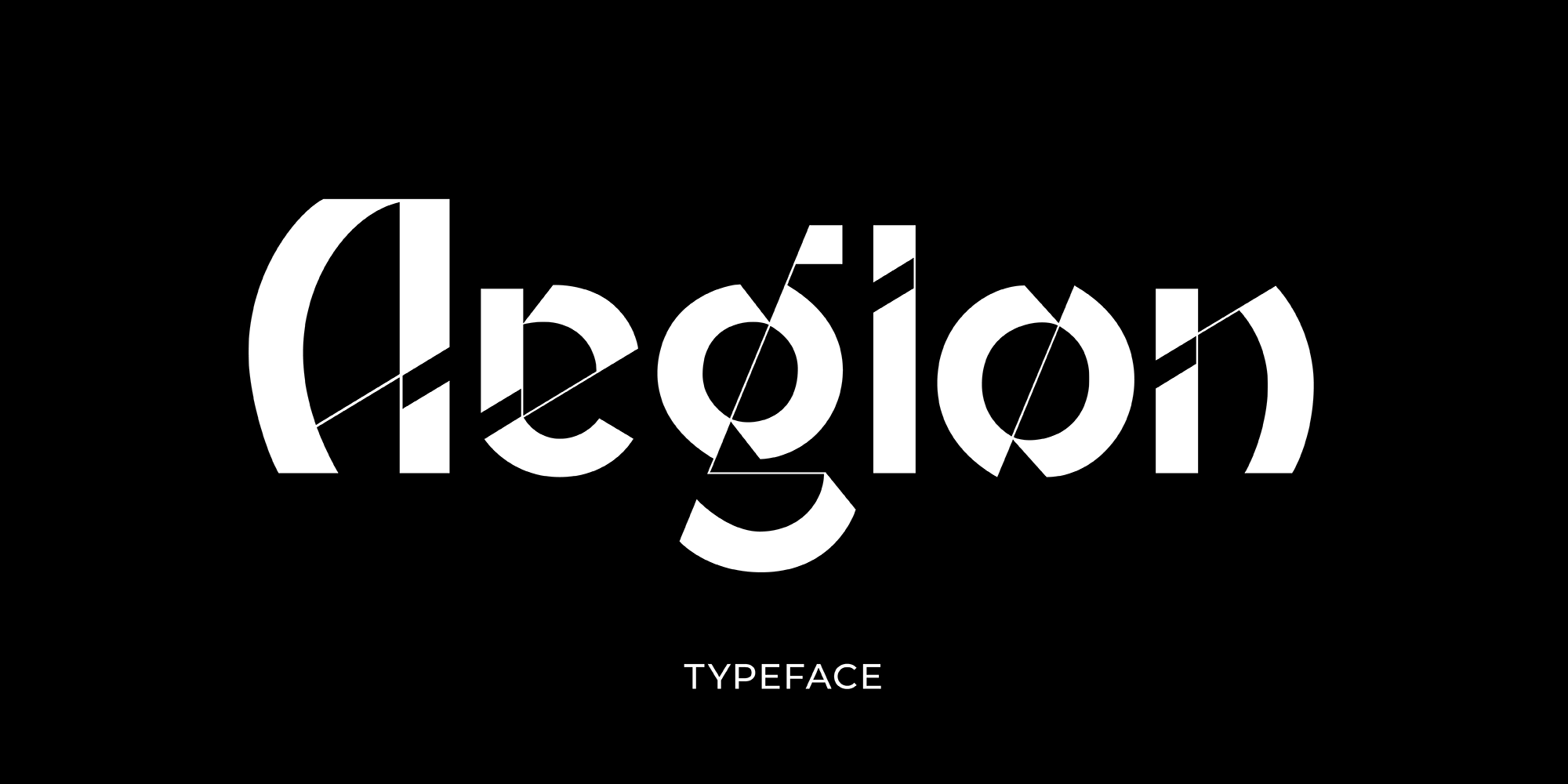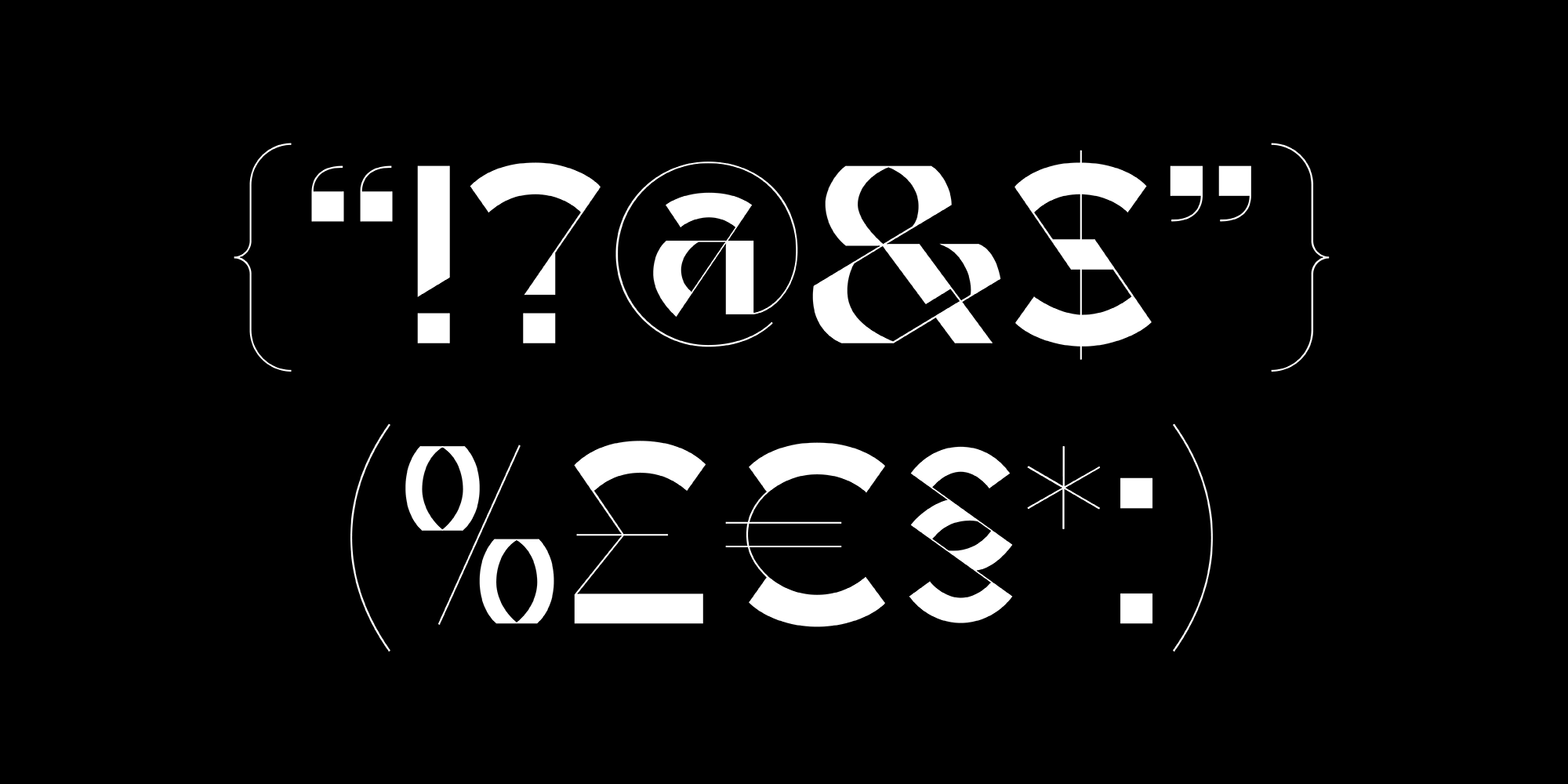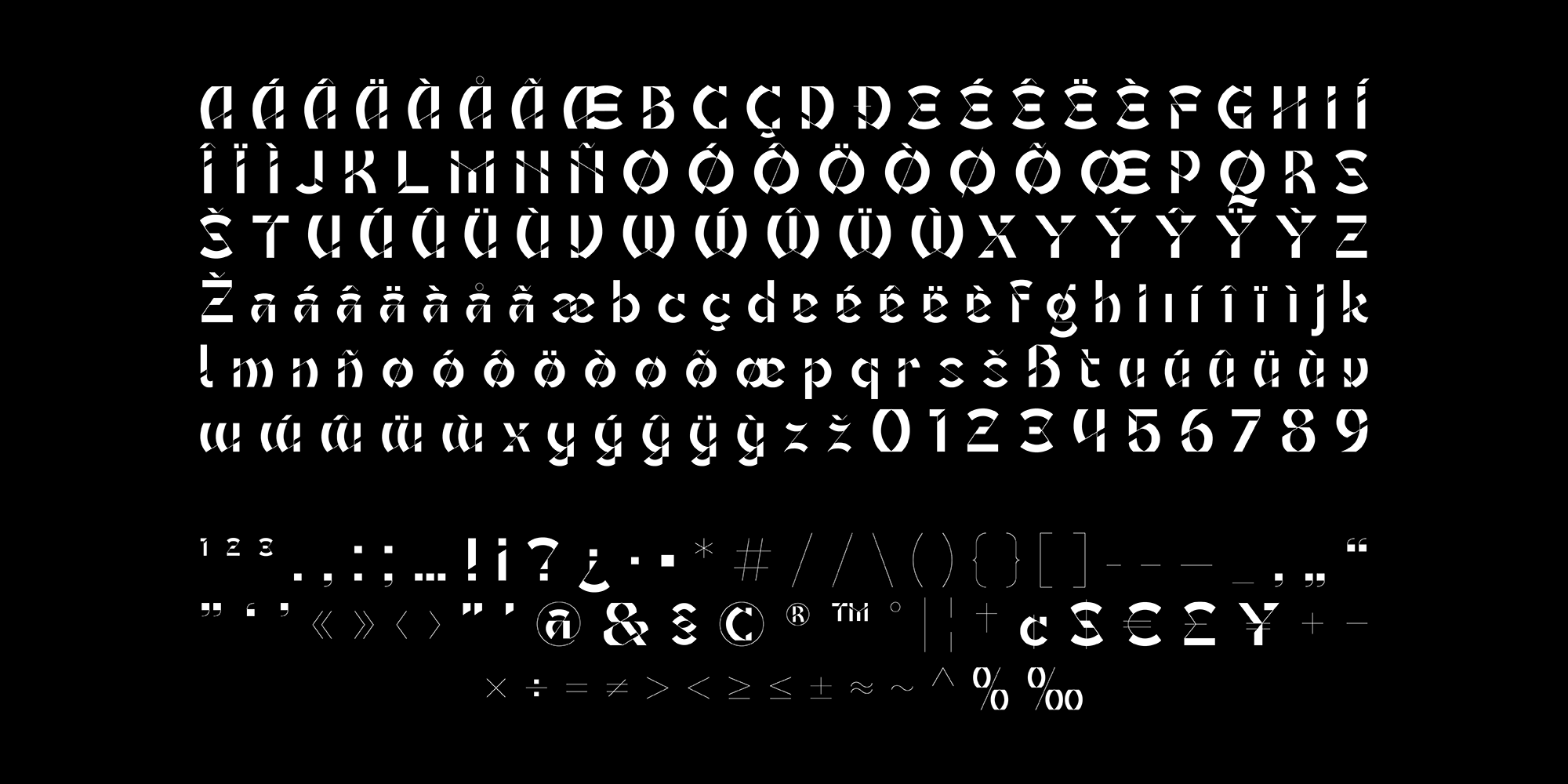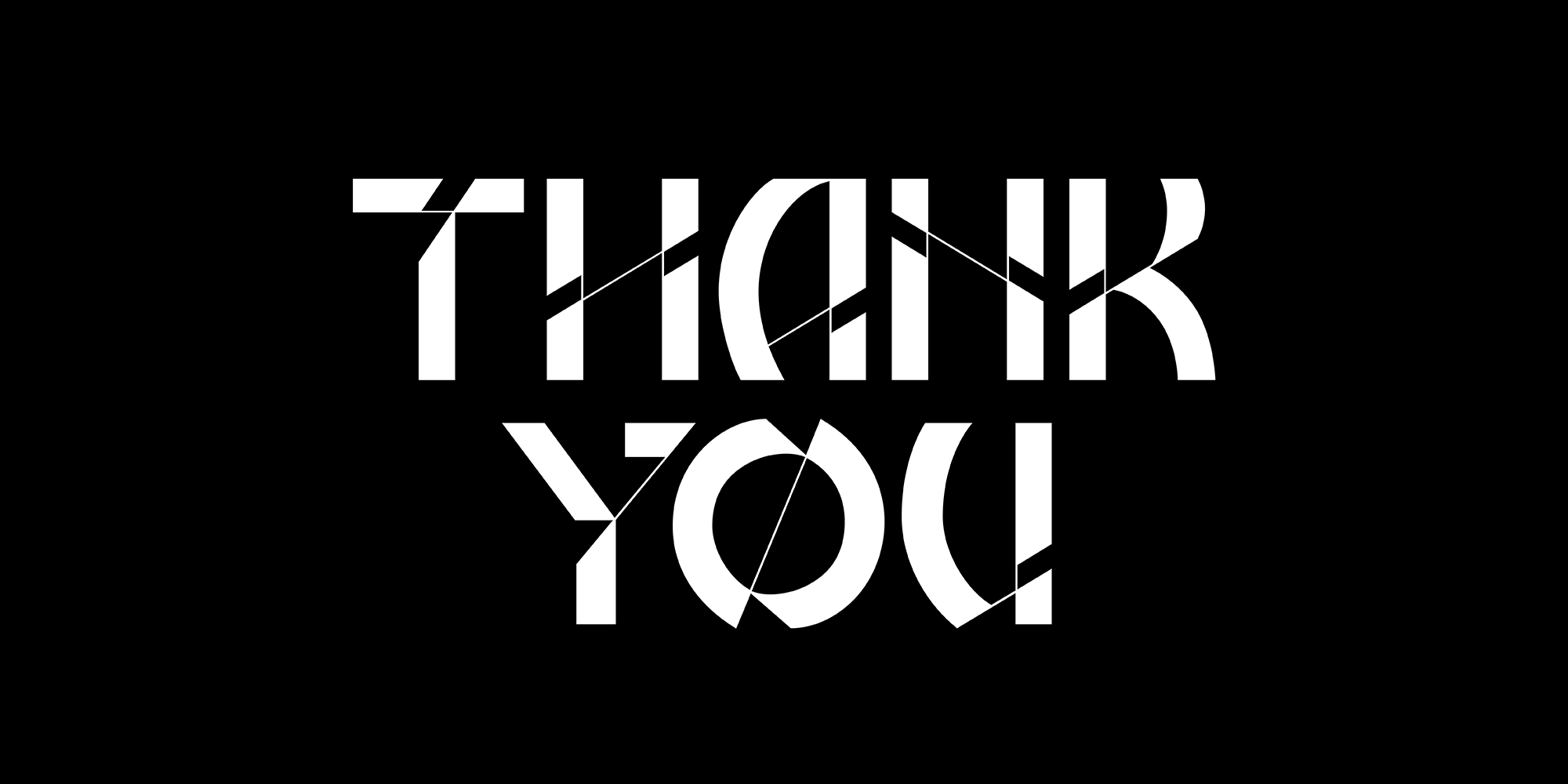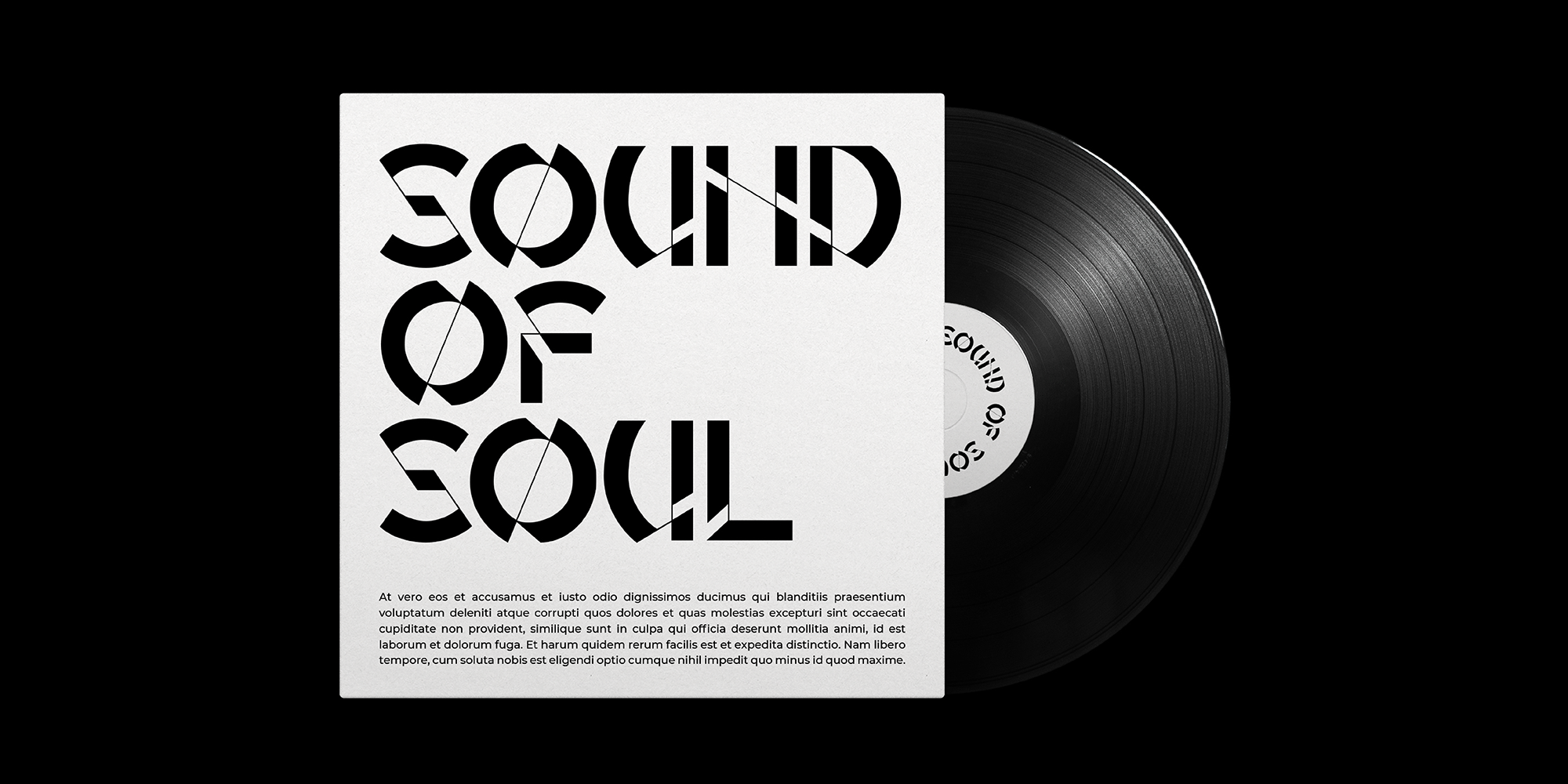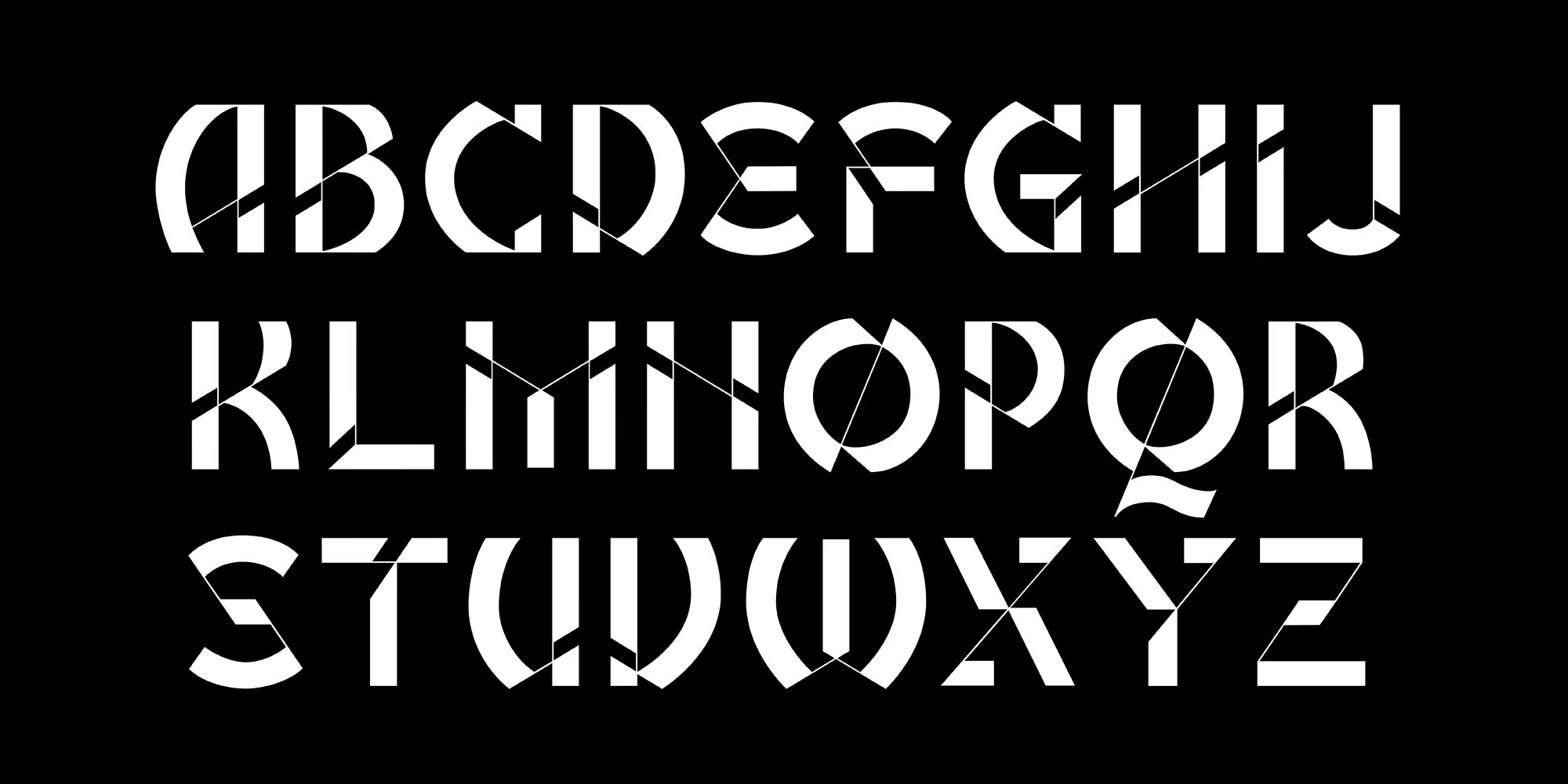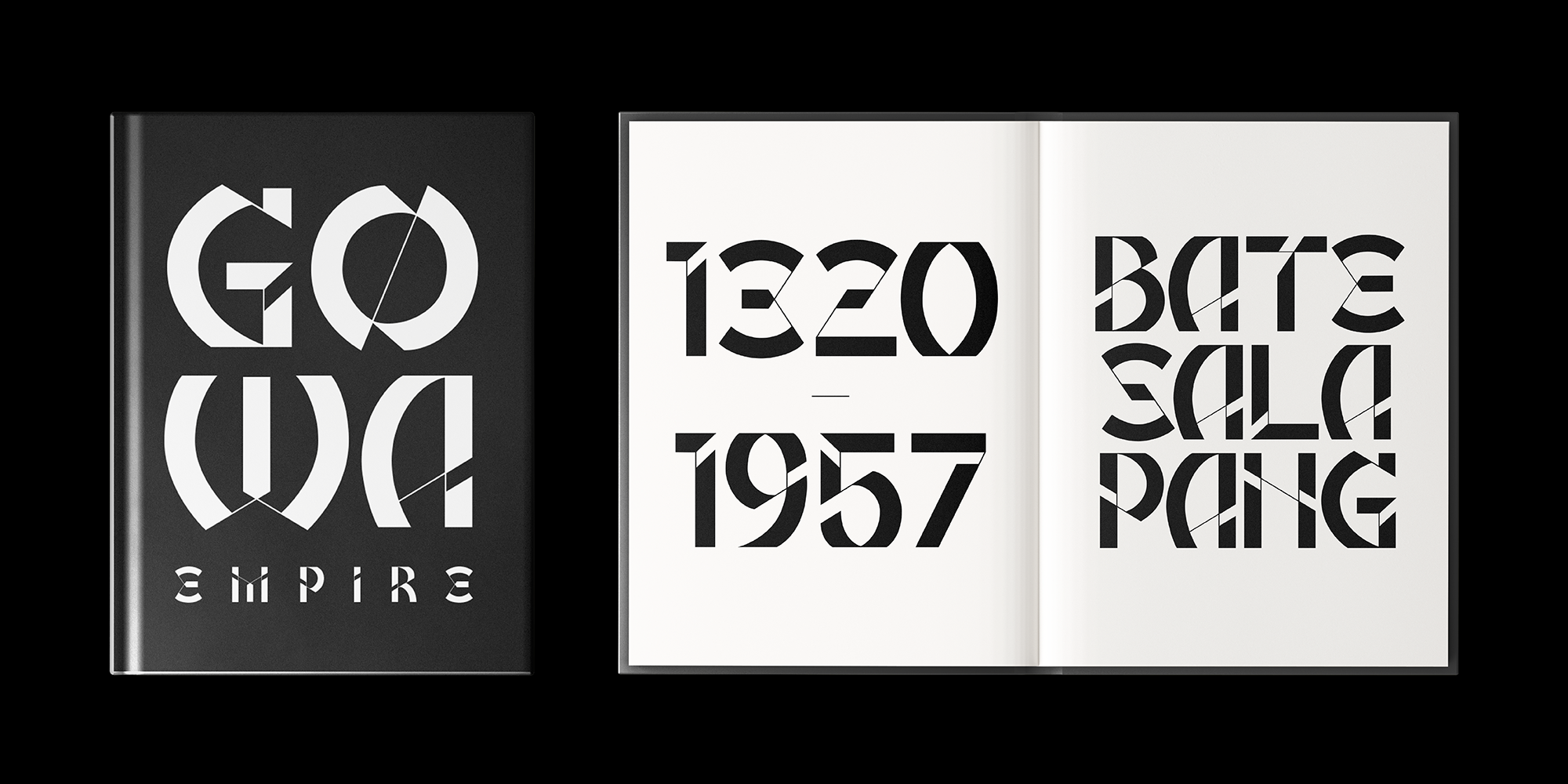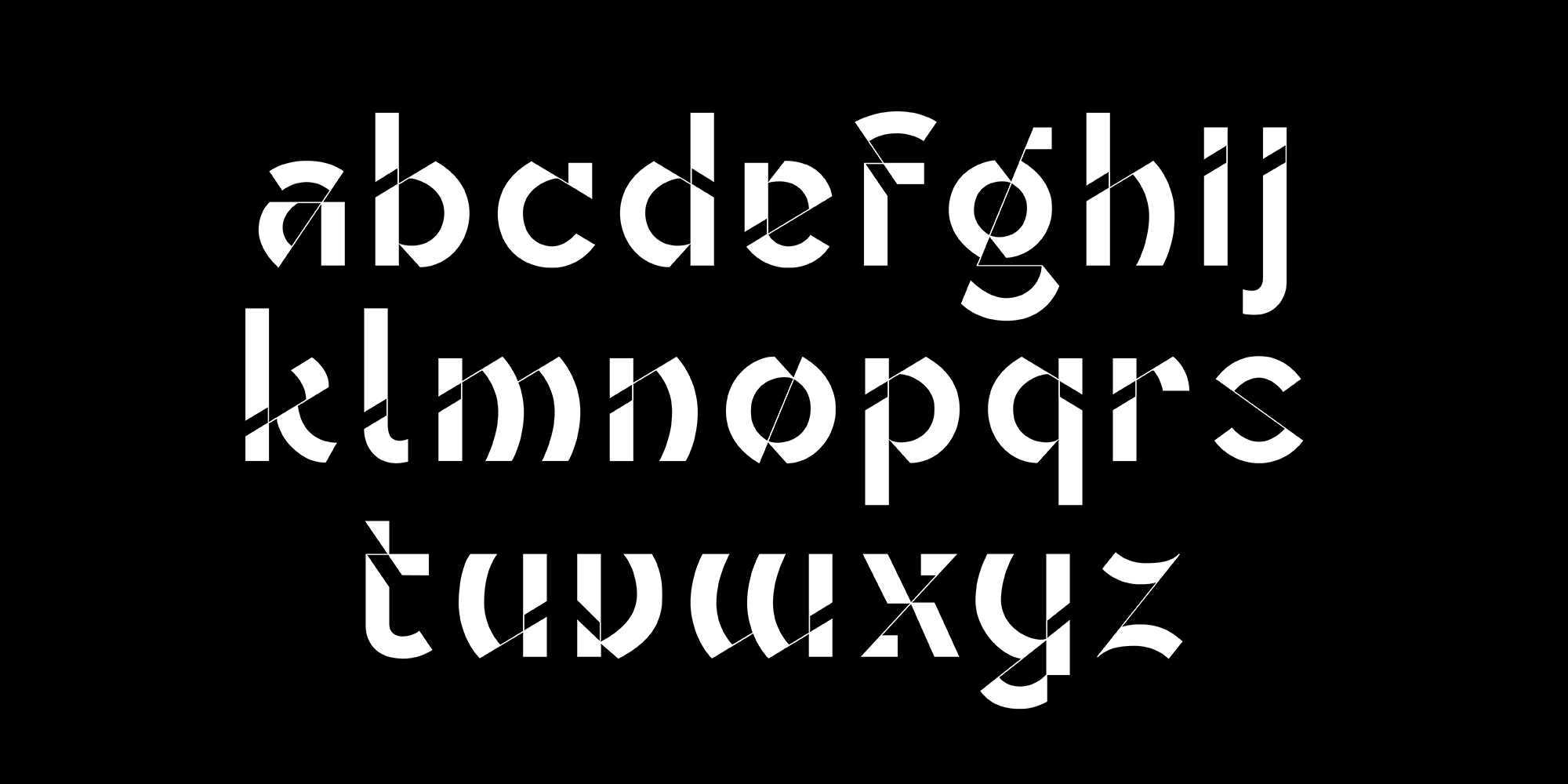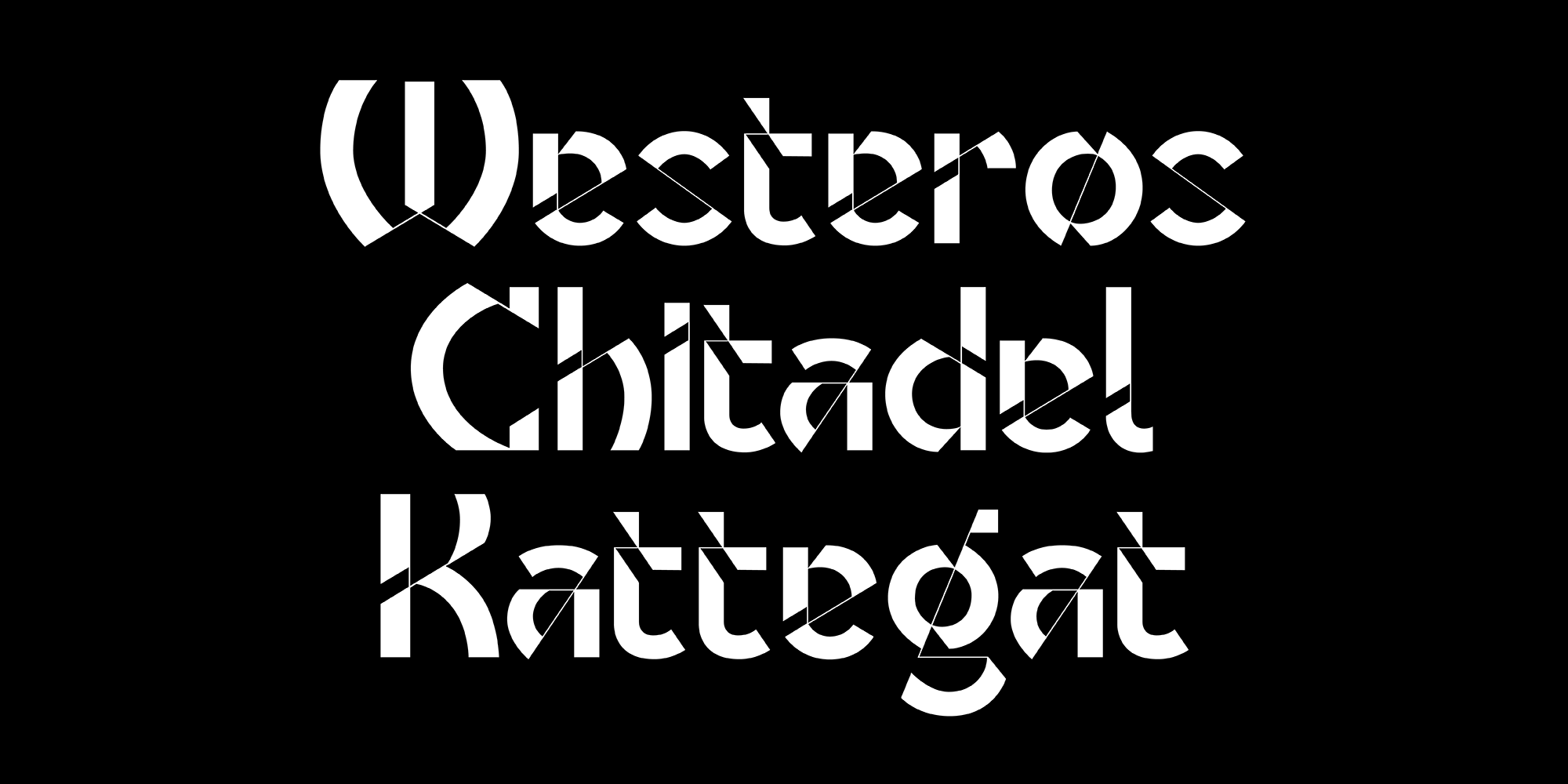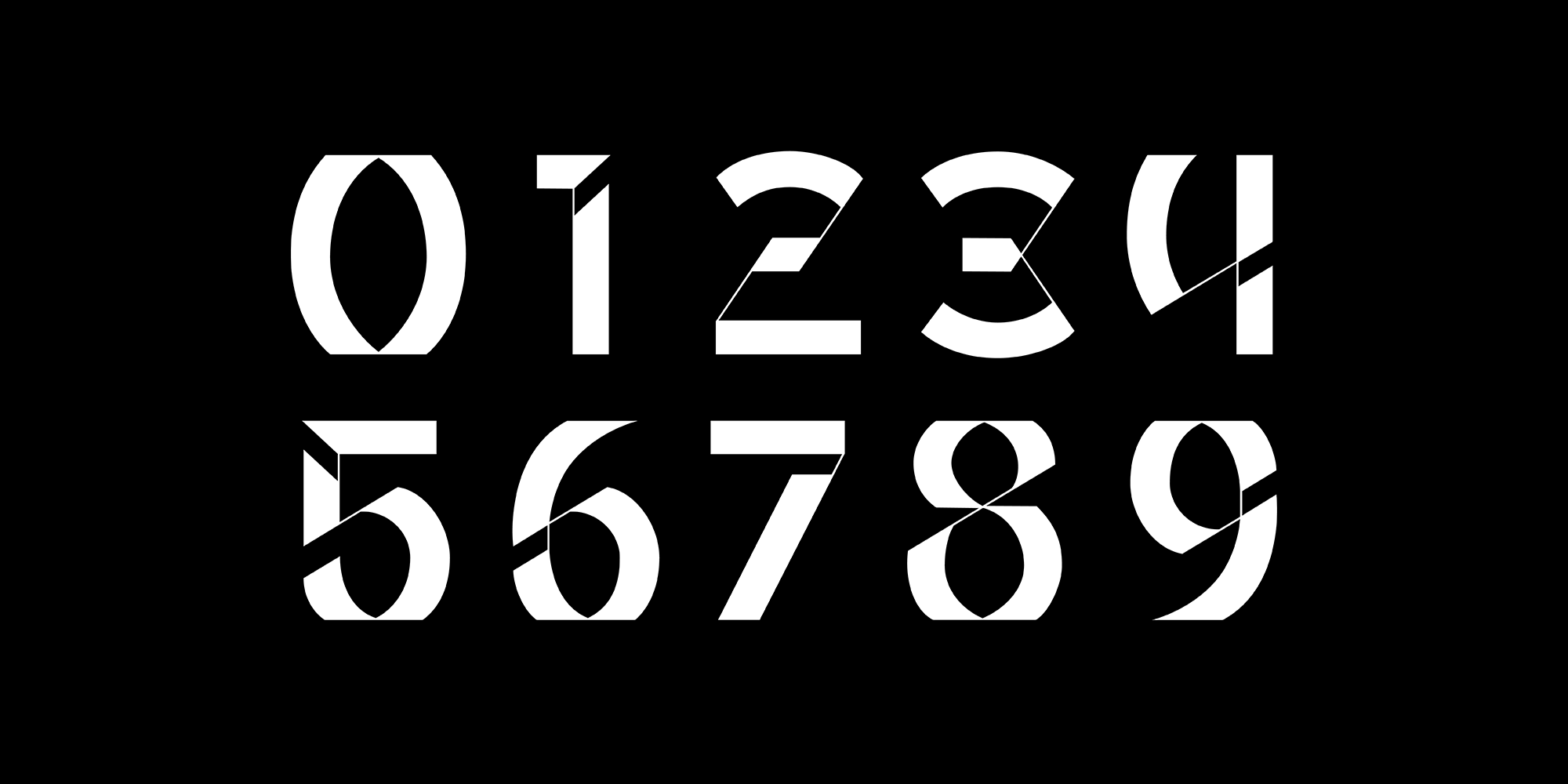
Aegion
Aegion is a display typeface inspired by blackletter style. Aegion is perfect choice for people who looking for unique and powerful display heading.